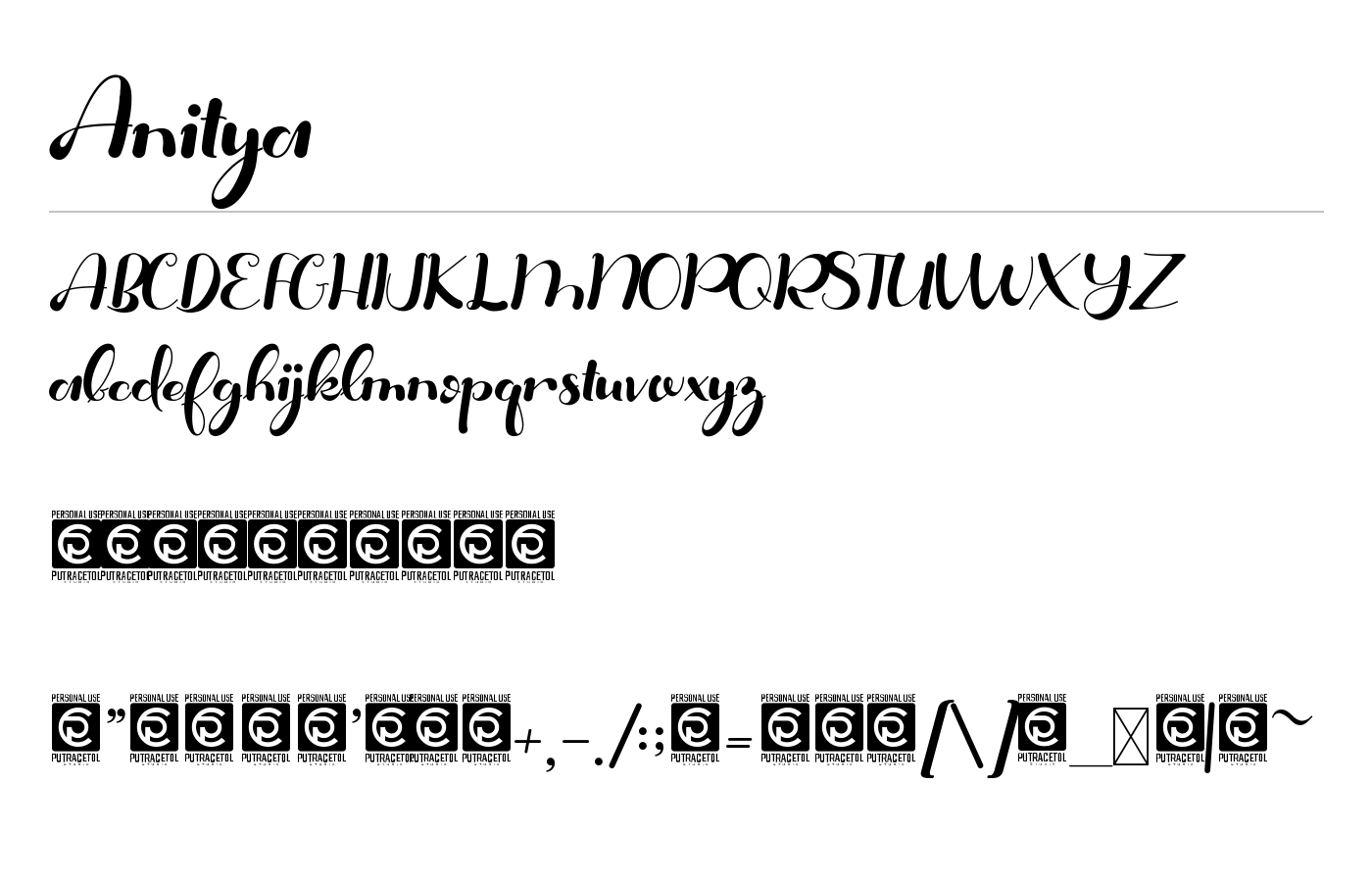
Anitya is a stylish script font with flowing, elegant letterforms that combine both thick and thin strokes to create a lively, hand-lettered feel. Its graceful curves and slightly condensed structure make it perfect for adding a personal, artistic touch to invitations, branding, and fashion projects. This font works well for headline use where a sophisticated, yet approachable aesthetic is desired.
Anitya Font
About Anitya Font